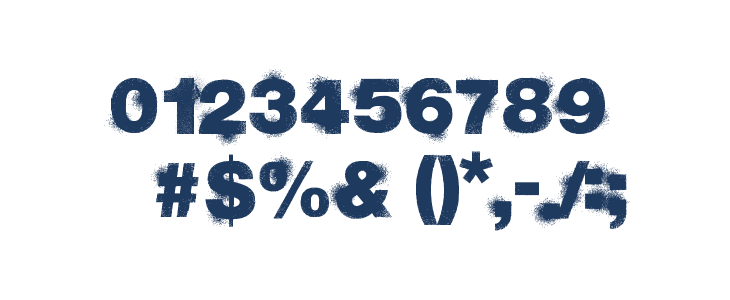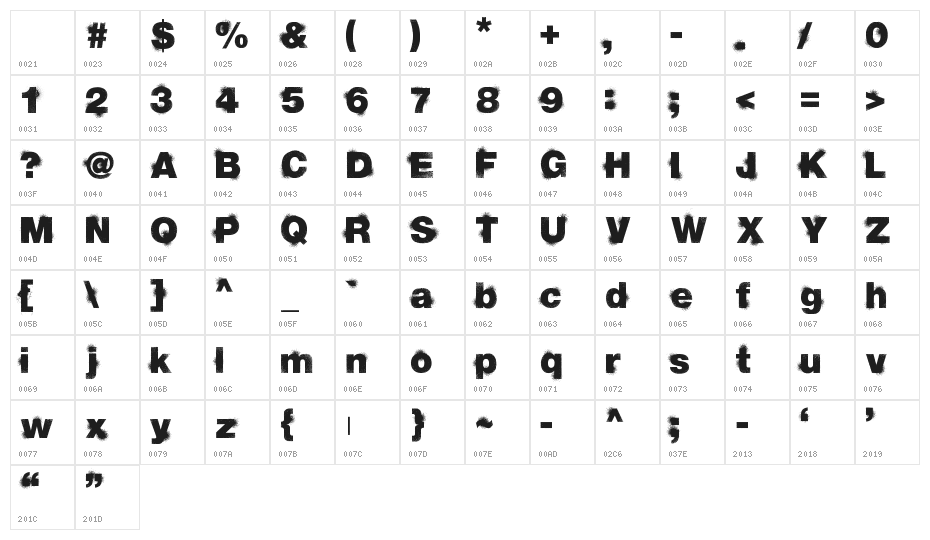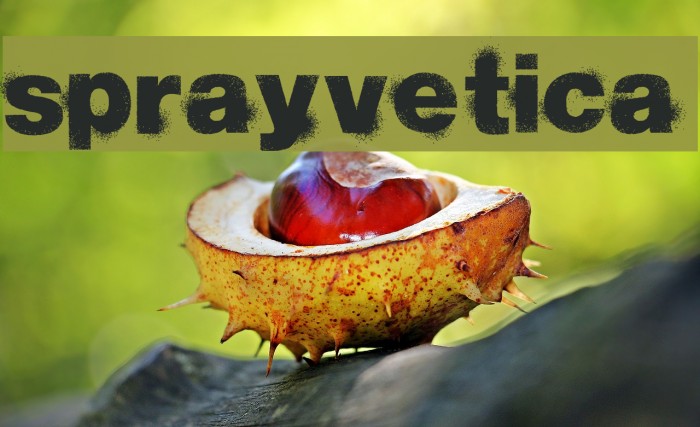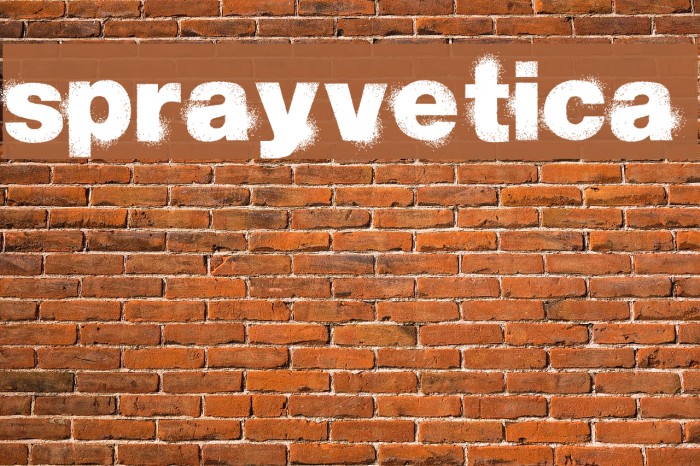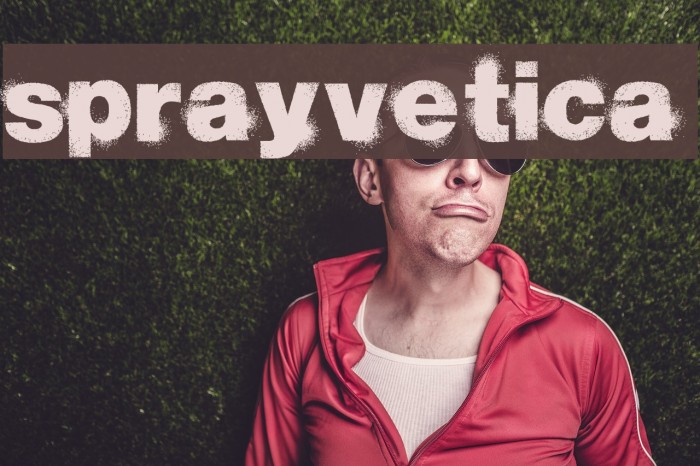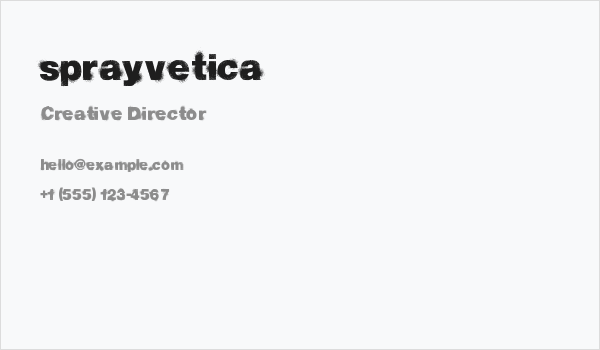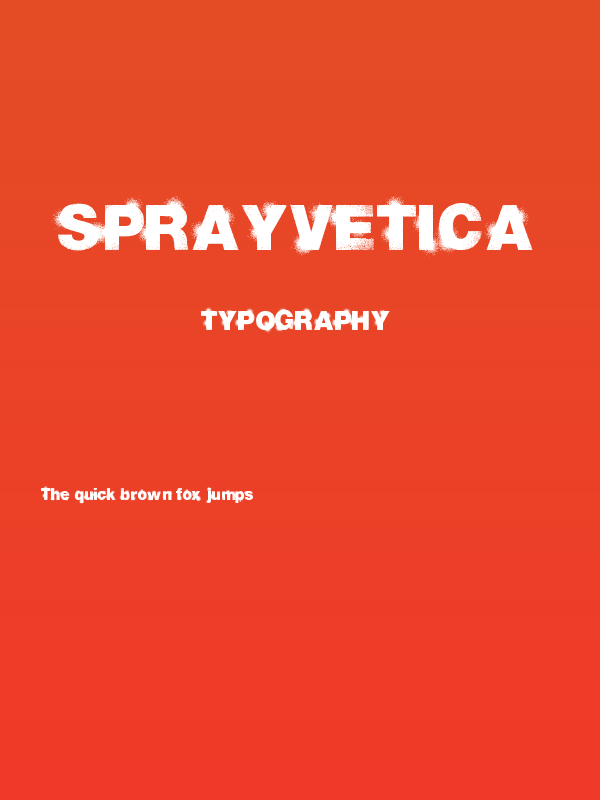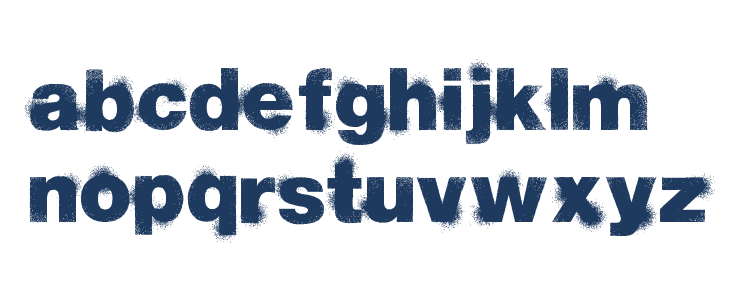
sprayvetica Font
sprayvetica Description
This font features a bold, spray-painted aesthetic, giving it a gritty and urban feel. The characters are heavily textured, resembling the effect of spray paint on a rough surface. Each letter is distinct, with a thick, robust structure that maintains legibility despite the distressed appearance. The uppercase and lowercase letters, as well as numbers and special characters, all share this consistent style, making it suitable for projects that require a raw, edgy look. The font's unique texture adds depth and character, making it stand out in any design.
| Overall Style | Urban, Edgy, Textured |
| Use Case | Headlines, Posters, Branding |
| Proposed Projects | Ideal for street art-inspired designs, music album covers, posters, and urban-themed branding. |